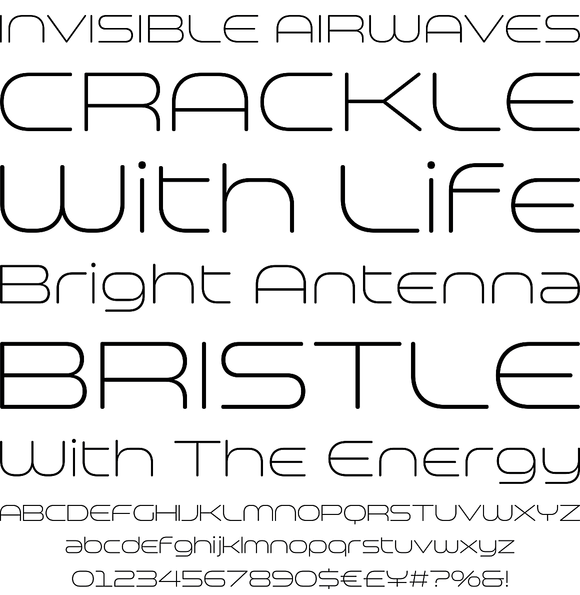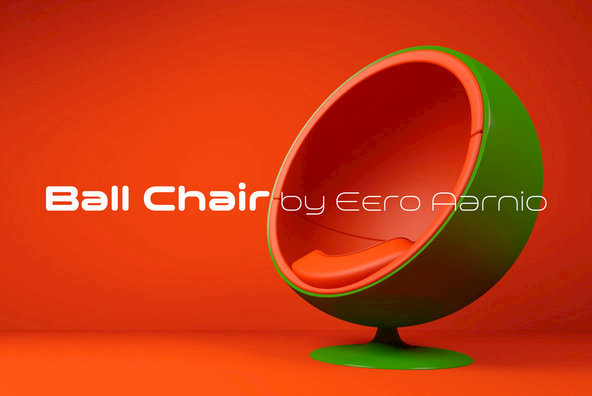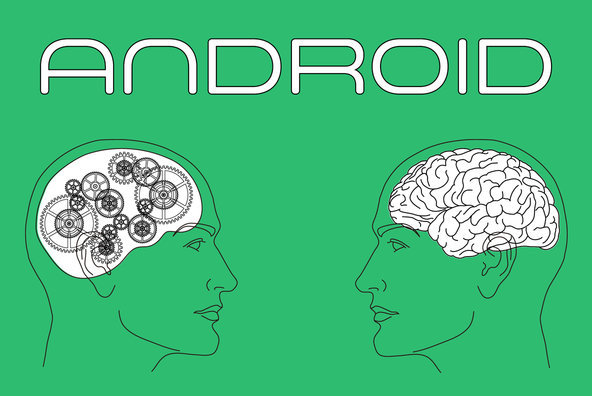
Before the original sketches I had imagined and dreamed this font was used for side characters of retro robot animations such as Gundam and Ideon. But the sketches was put in a PENDING folder.
Before the original sketches I had imagined and dreamed this font was used for side characters of retro robot animations such as Gundam and Ideon. But the sketches was put in a PENDING folder. It was a few years ago In the begining of 2011 I restart working with the skaetches to complete as a font file. Detail and some shape were improved retaining the original concept and they were completed and named Space Colony . Just as the name implies this wide and geometric font family consisting of 6 weights was desiged targeting at use for futuristic product of game movie logo and so on. Not only that but the rounded shape makes a lovely cute and soft impressions so this font is suit for cartoon animation and character merchandise too.